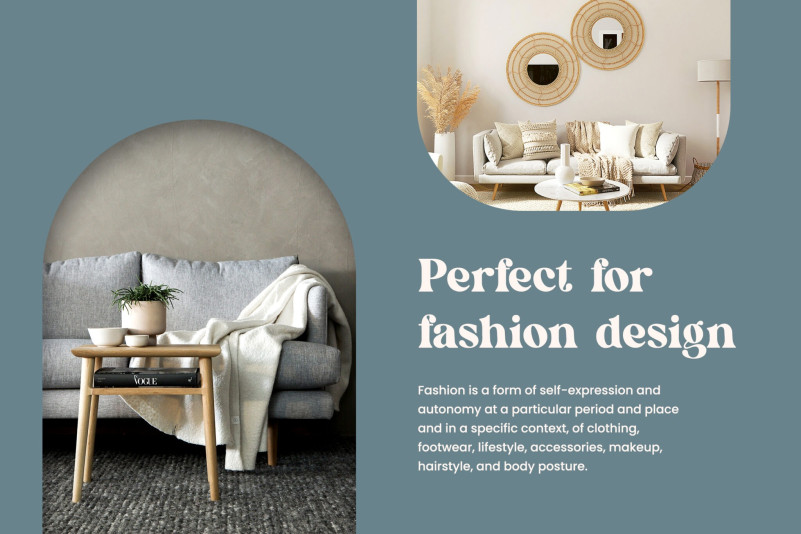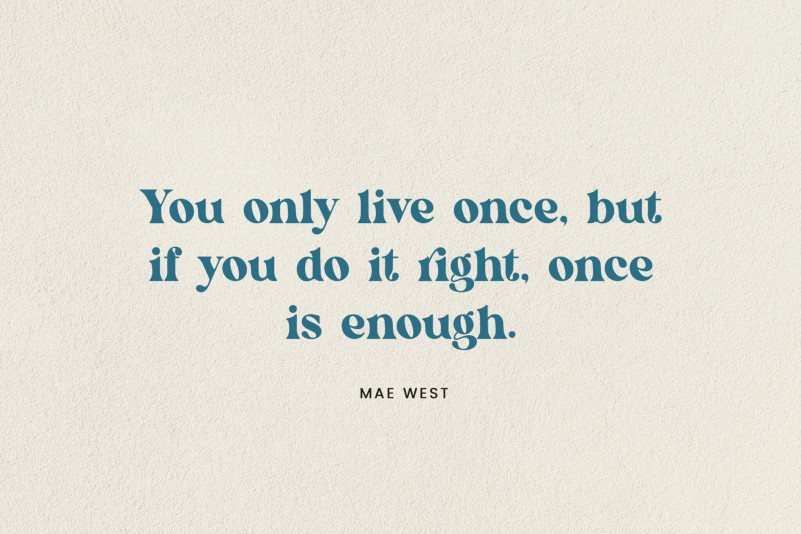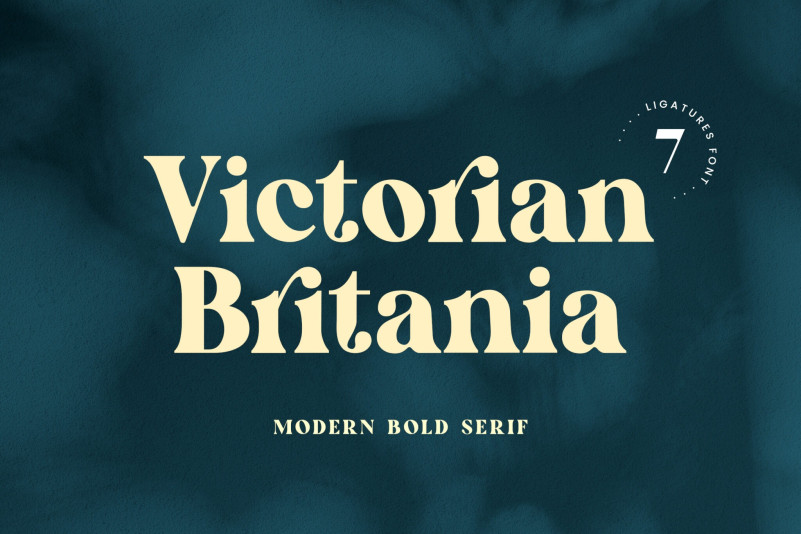
Victorian Britania Font
Victorian Britania Font, This font was created for all forms of business and branding such as clothing, logos, skate boards and others according to your needs.